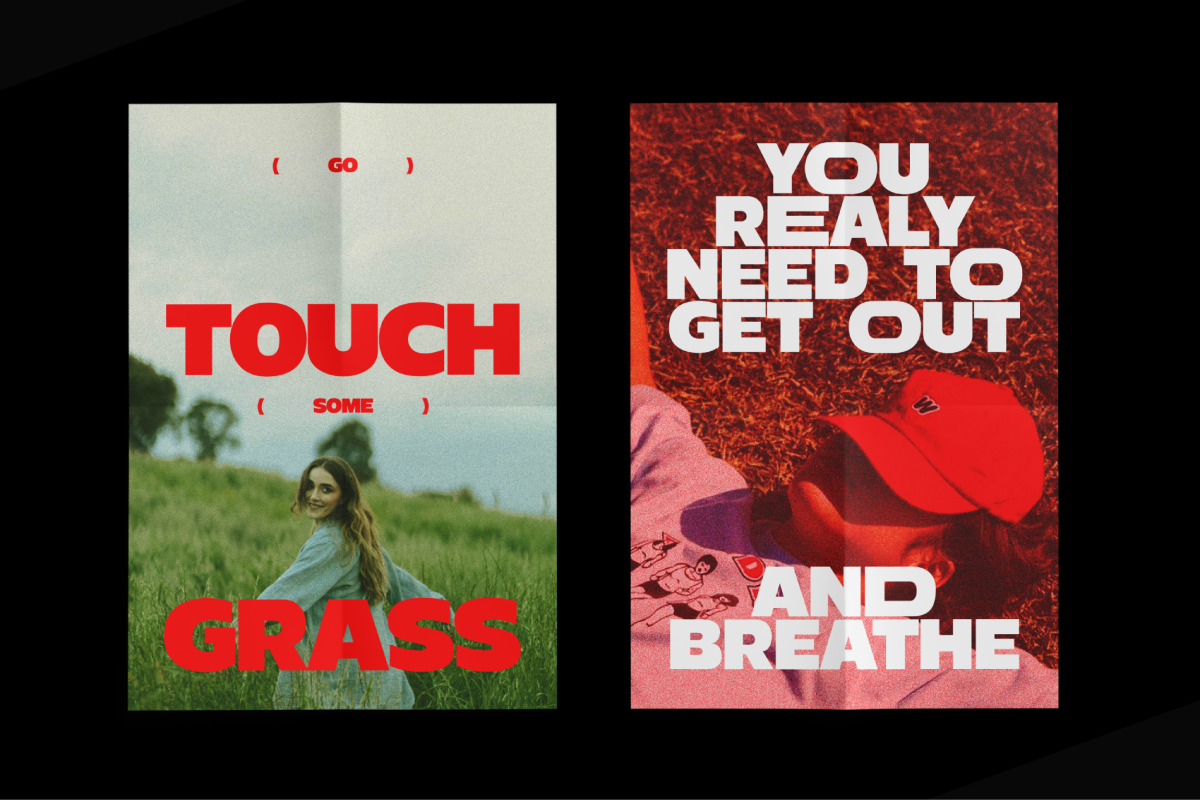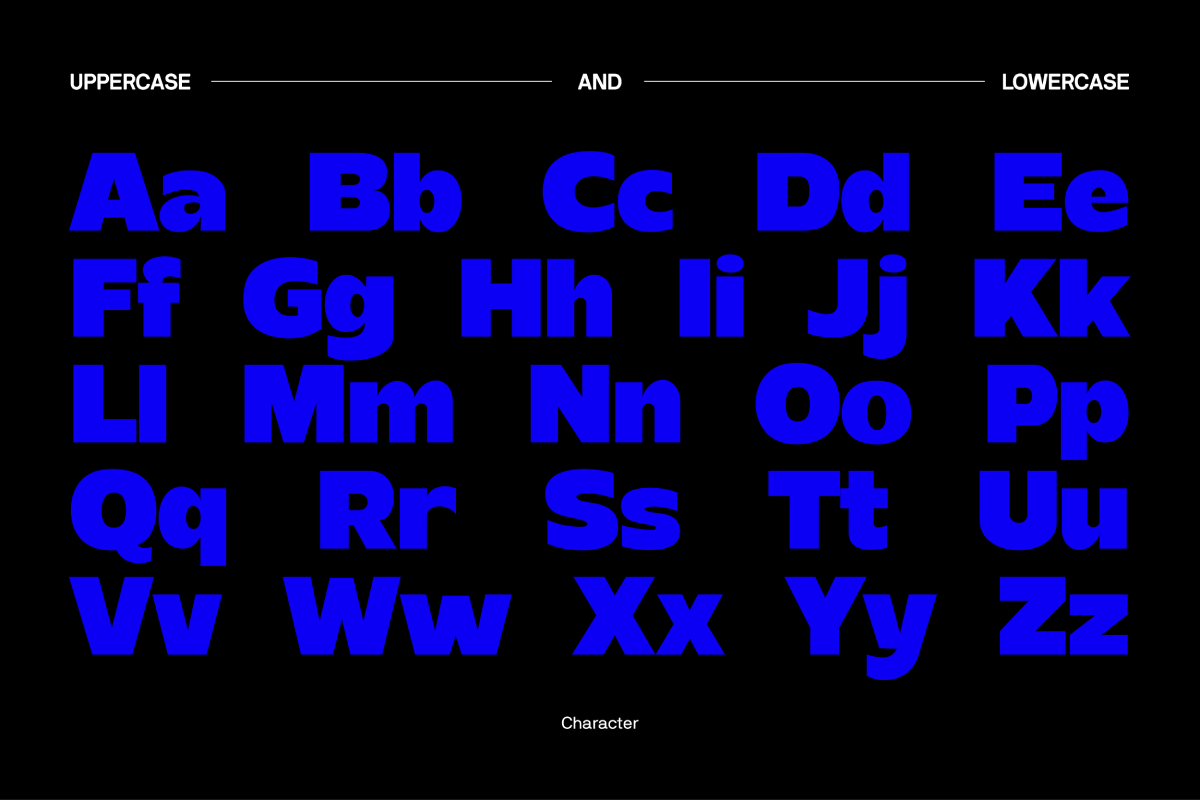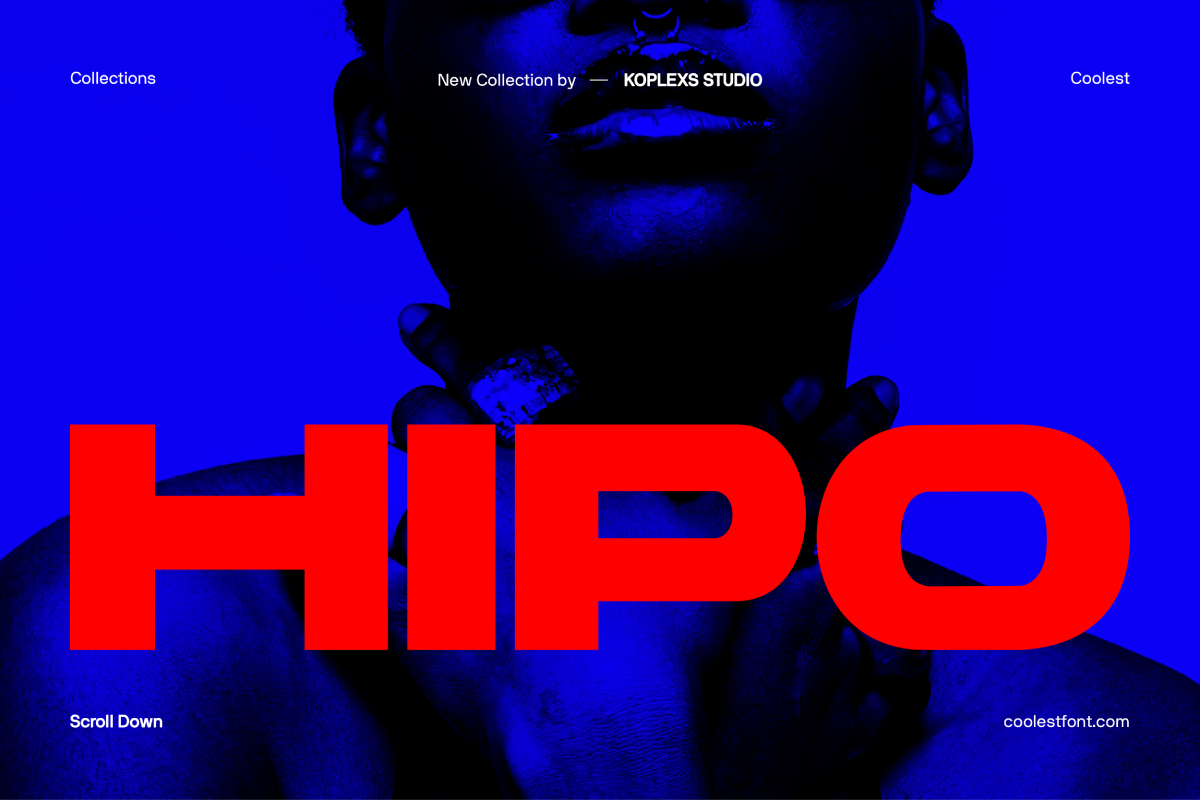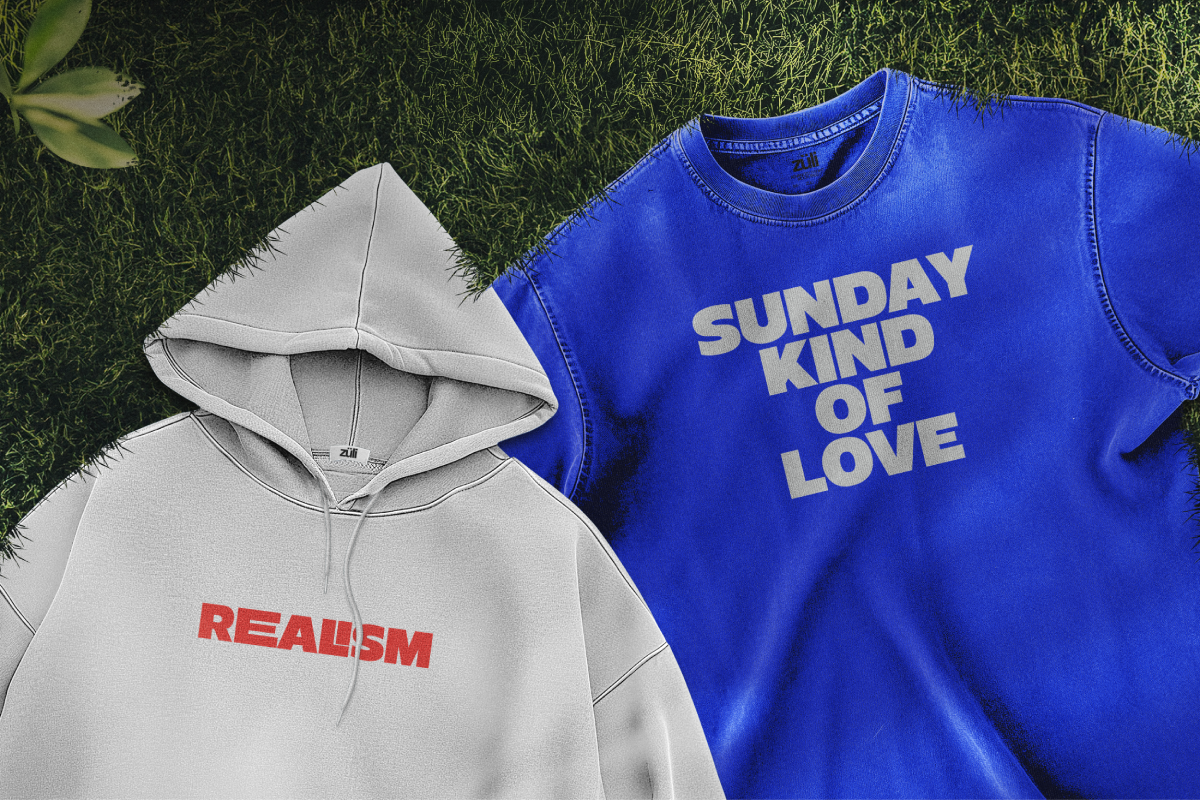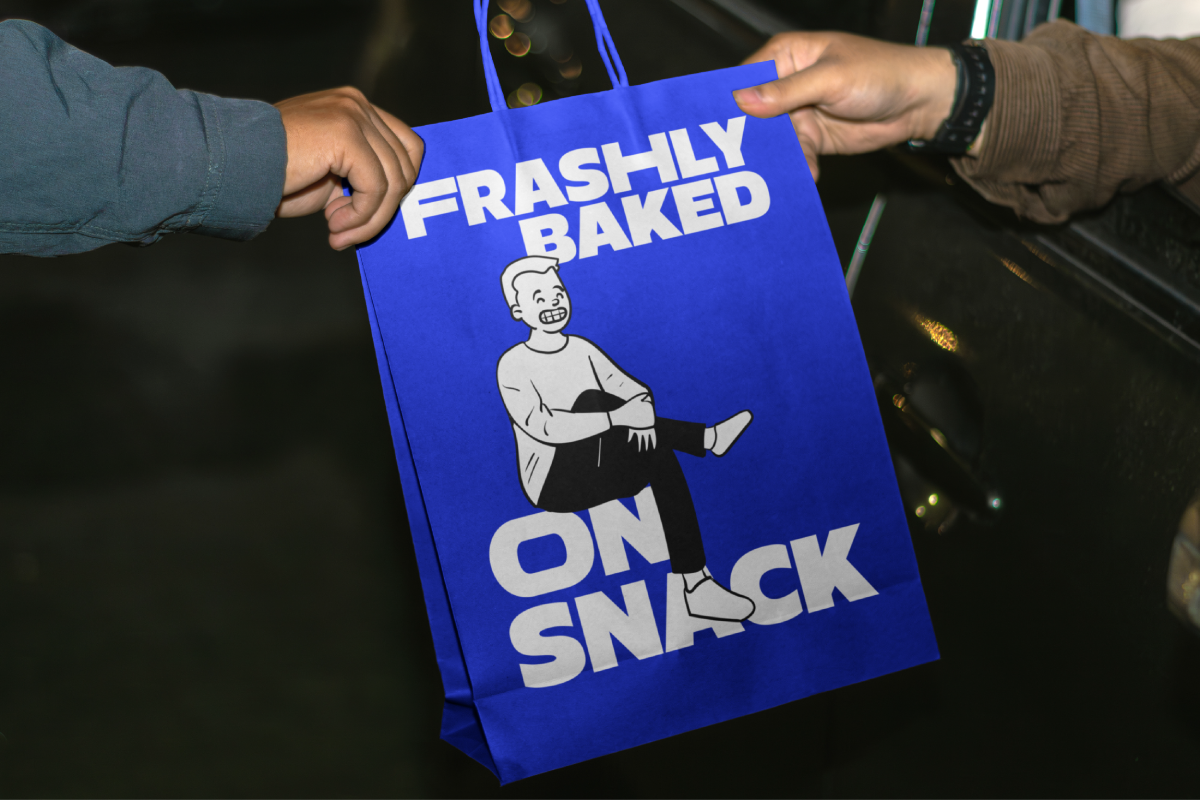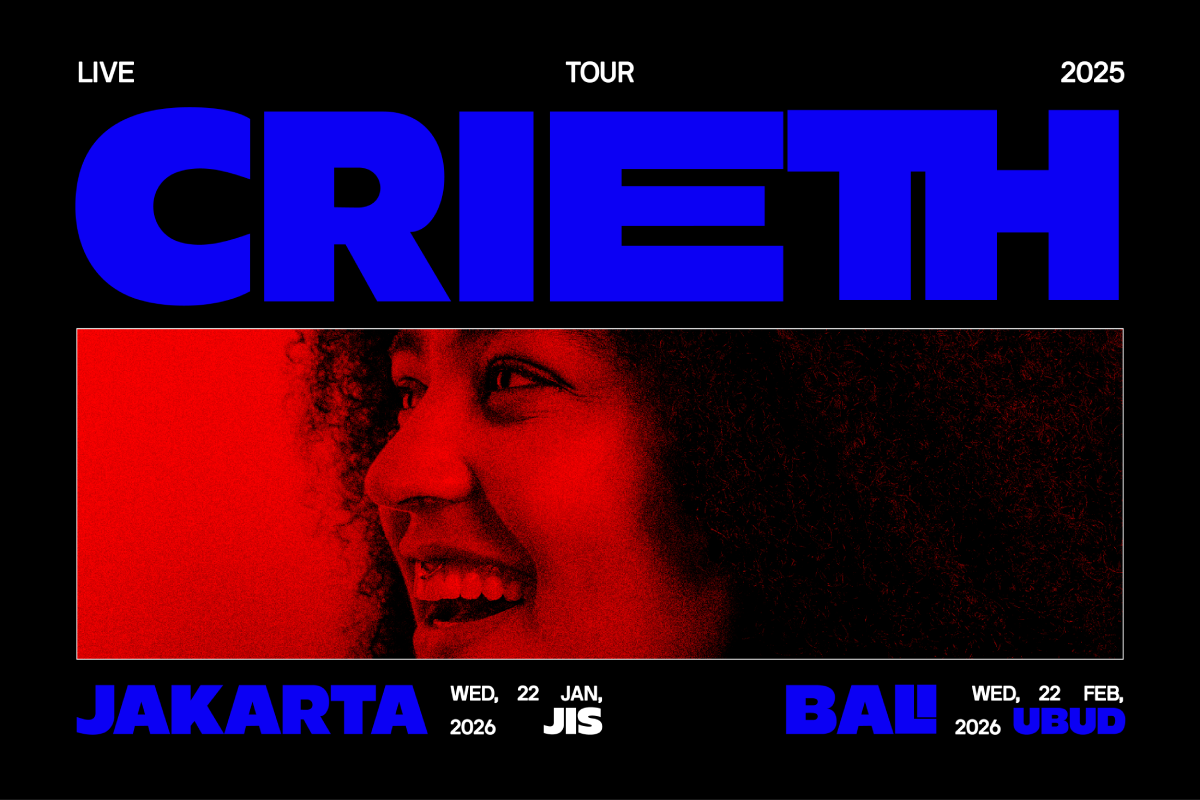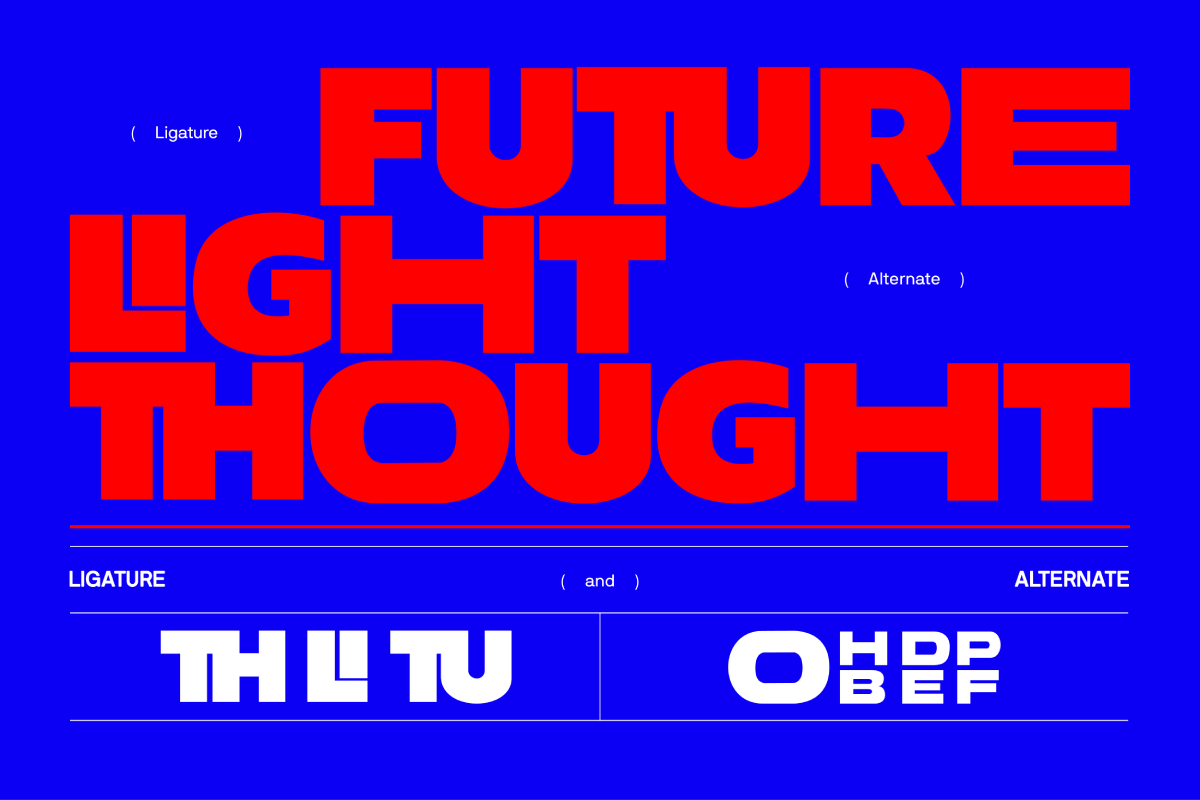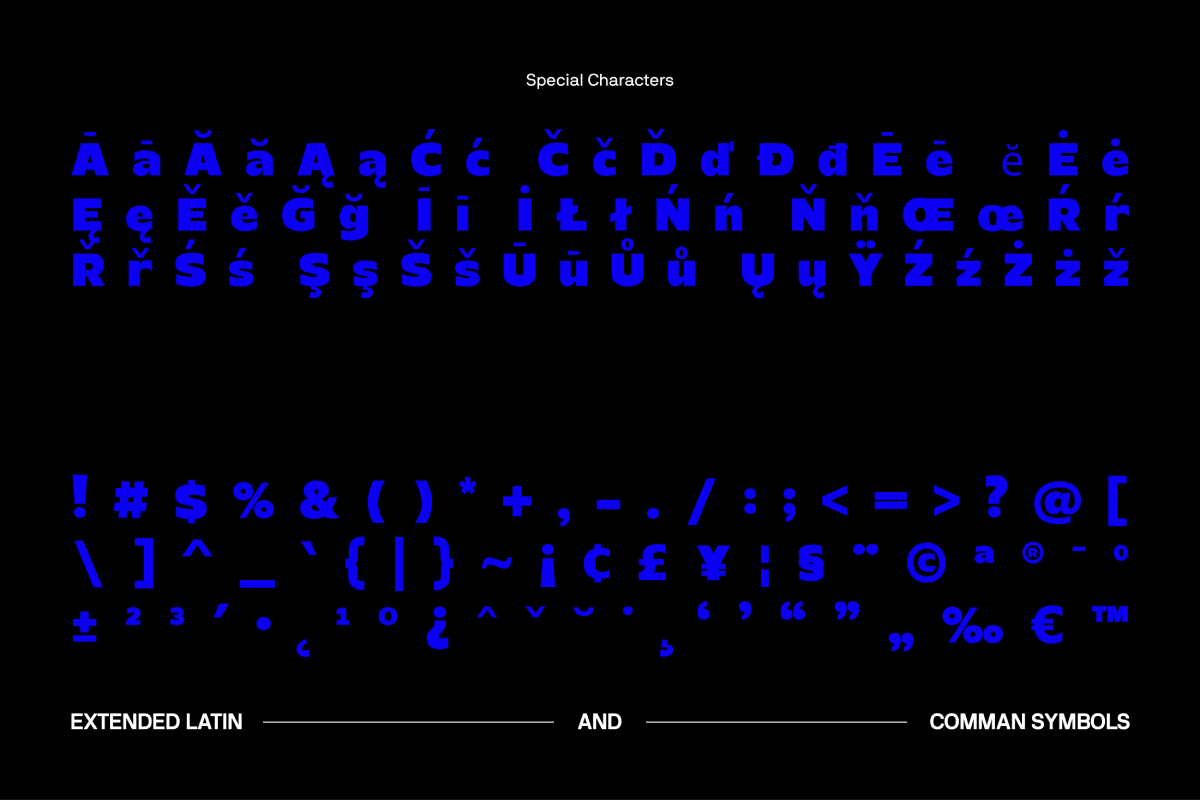
Hipo Font – Bold Sans Serif Branding
Hipo Font – Bold Sans Serif Branding Typeface
Hipo Font is a bold sans serif font crafted for modern designers who want impact and elegance in one typeface. Perfect as a branding font, logo font, and display type, Hipo combines strong shapes with a clean, versatile design.
This cool font belongs among the coolest fonts for creative projects, bringing the balance of a modern aesthetic font with the refinement of an elegant luxury font. Whether you’re designing logos, packaging, posters, or social media content, Hipo is the perfect font to elevate your brand identity.
🌟 Hipo Font Features
- Bold uppercase & lowercase letters
- Extended Latin support & special characters
- Geometric sans serif construction
- Works as a branding font, logo font, and display font
- Suitable for print, web, fashion, and luxury branding
🏆 Hipo Font Perfect For
- Logos & Brand Identity
- Fashion & Editorial Design
- Product Packaging
- Social Media Campaigns
- Posters & Merchandising